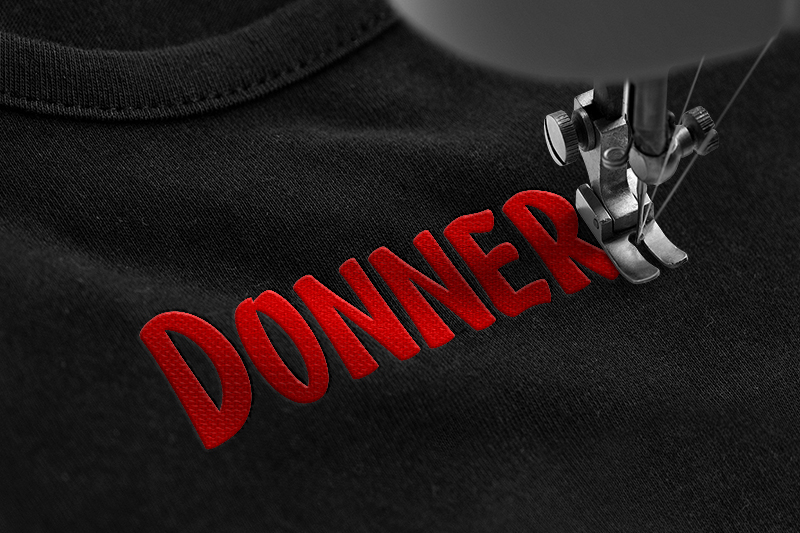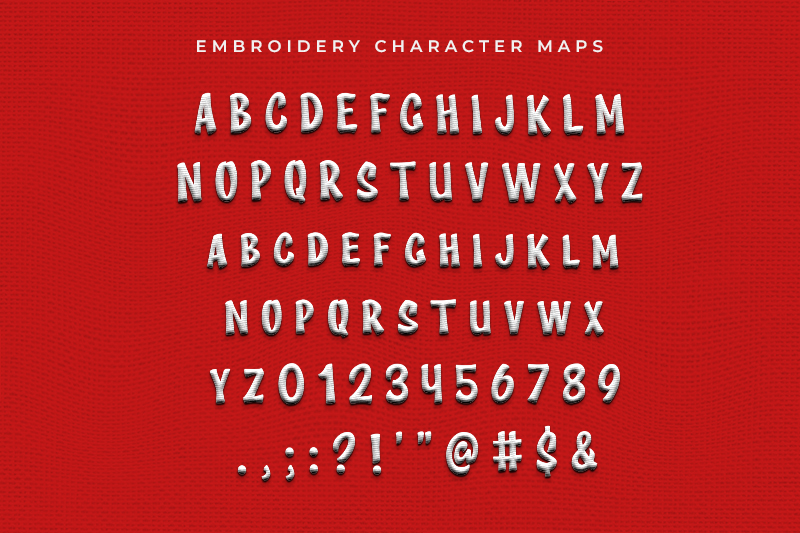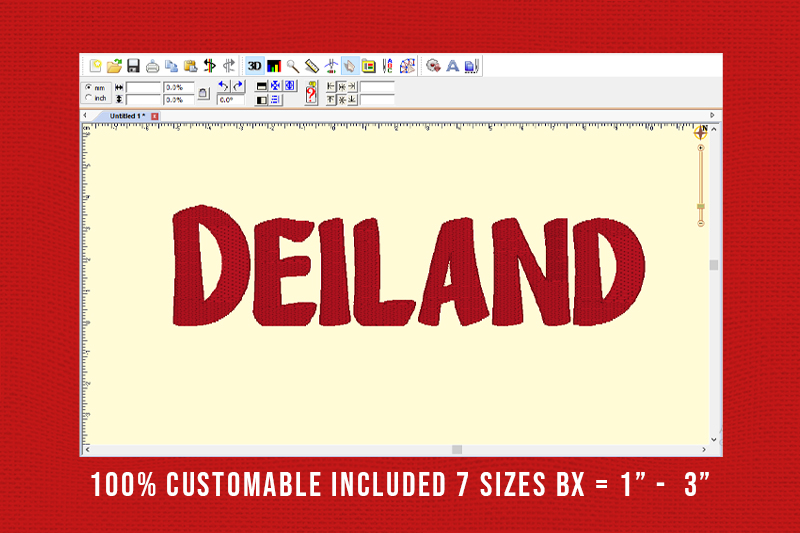
Deiland Embroidery Font is a part of embroidery fonts. This font was made to be one of the best Christmas fonts. This font is one of the collections you can see on the Kong Font website. Deiland font is a clean font without any additions on all sides of the letters. Also, we can see that this font size is not very bold. It is easily distinguished between letters, so it is referred to as a legible font.
Deiland font characteristic description above shows a modern and simple impression. The font does not need to add an ornament to make it look attractive. It can be a great embroidered font as well as a digital font despite adding anything on the sides. To convey a Christmas atmosphere, he can combine it with typical Christmas colors such as red, white, and green.
Good impressions and characteristics can make Deiland font one of the best Christmas fonts that can be used for embroidery on t-shirts, jackets, hoodies, and hats. Apart from Christmas, this font can be used for usually events on weekdays.